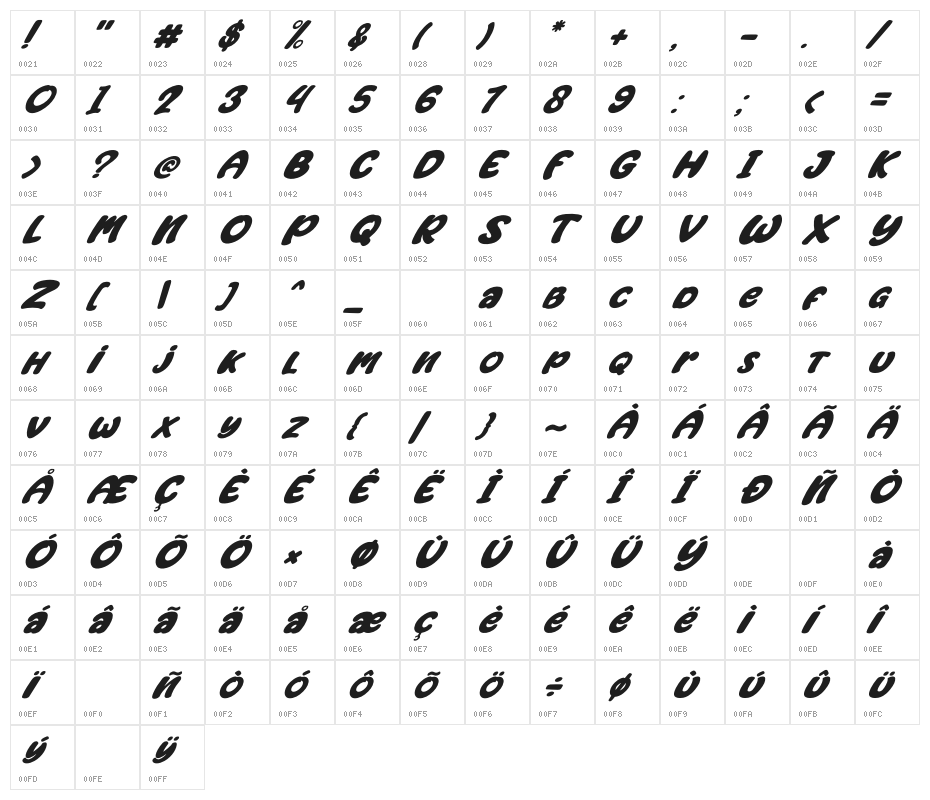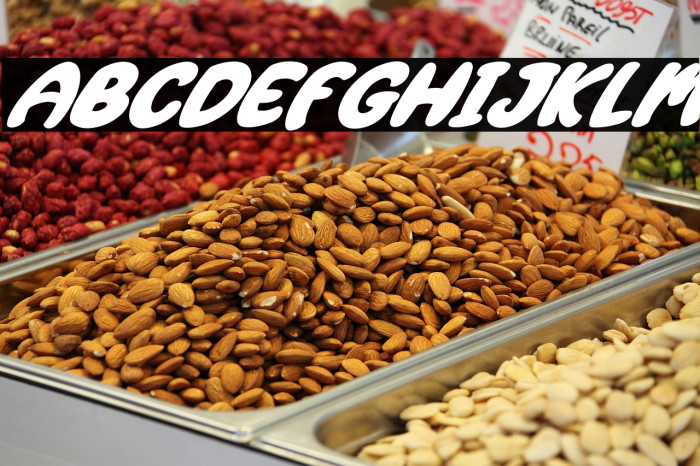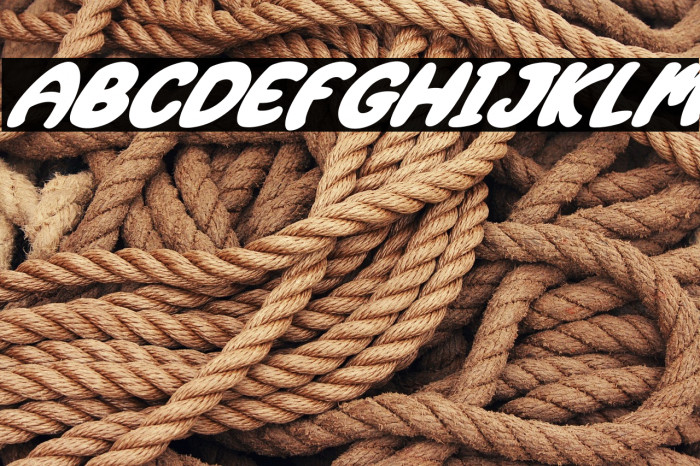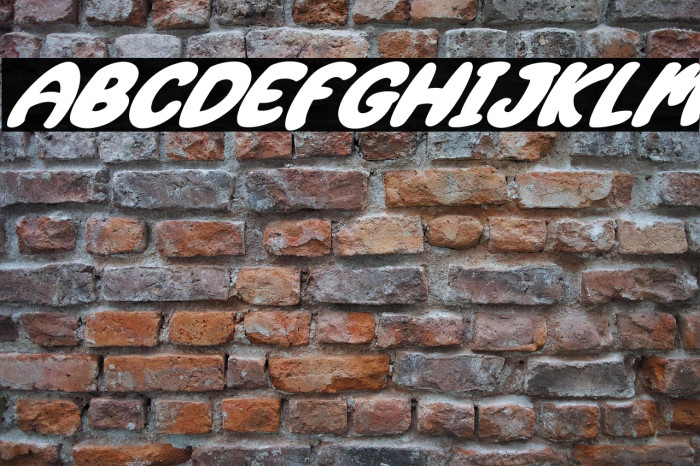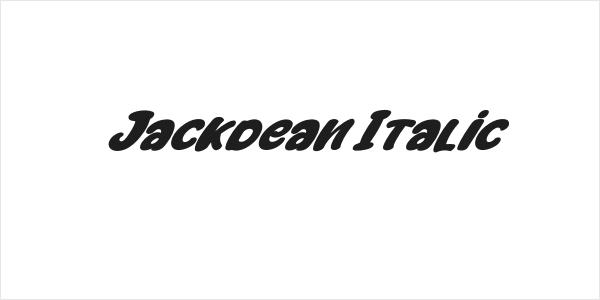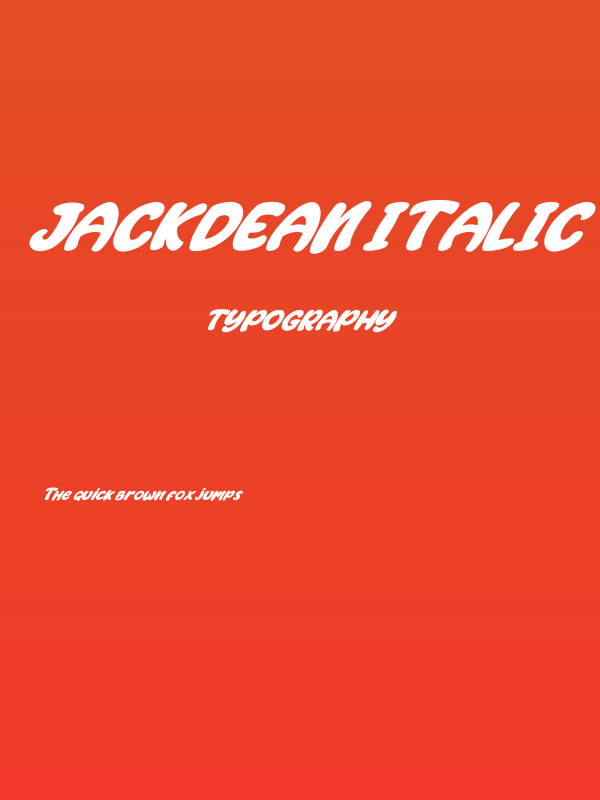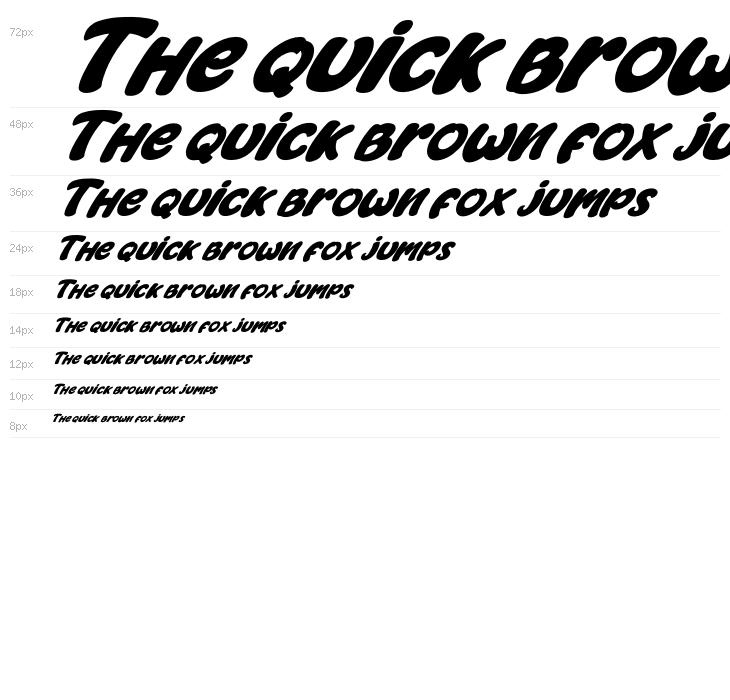
Jackdean Italic Font
Jackdean Italic Description
This font features a bold, italicized style with a strong presence and dynamic flow. The characters are thick and rounded, giving a sense of energy and movement. The uppercase and lowercase letters maintain a consistent slant, enhancing the italic effect. Numbers and special characters follow the same bold and slanted design, ensuring uniformity across all elements. The font's playful yet assertive style makes it suitable for projects that require a strong visual impact.